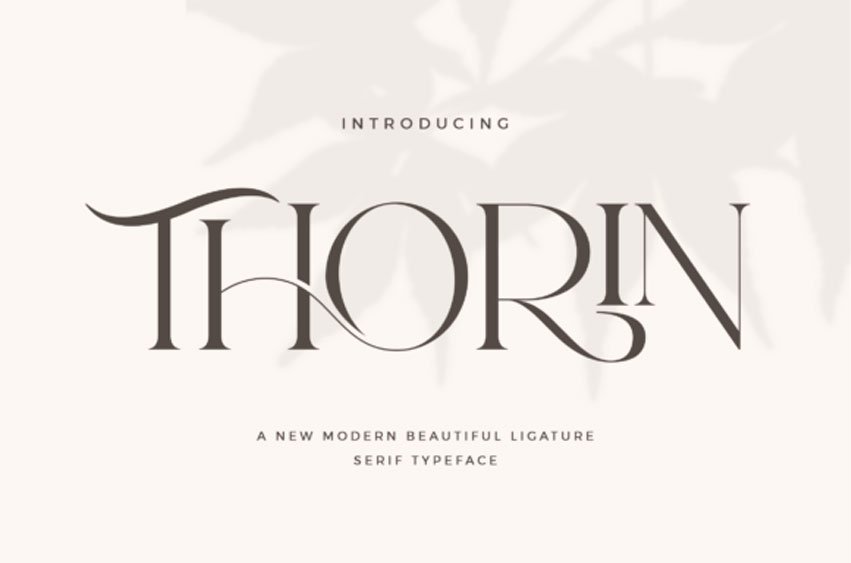
Thorin Modern Font Stylish Ligature Typeface, inspired by the famous minimalist logo perfect for designing templates, brochures, videos, advertising, branding, logos, and more.
Thorin Modern Font Preview